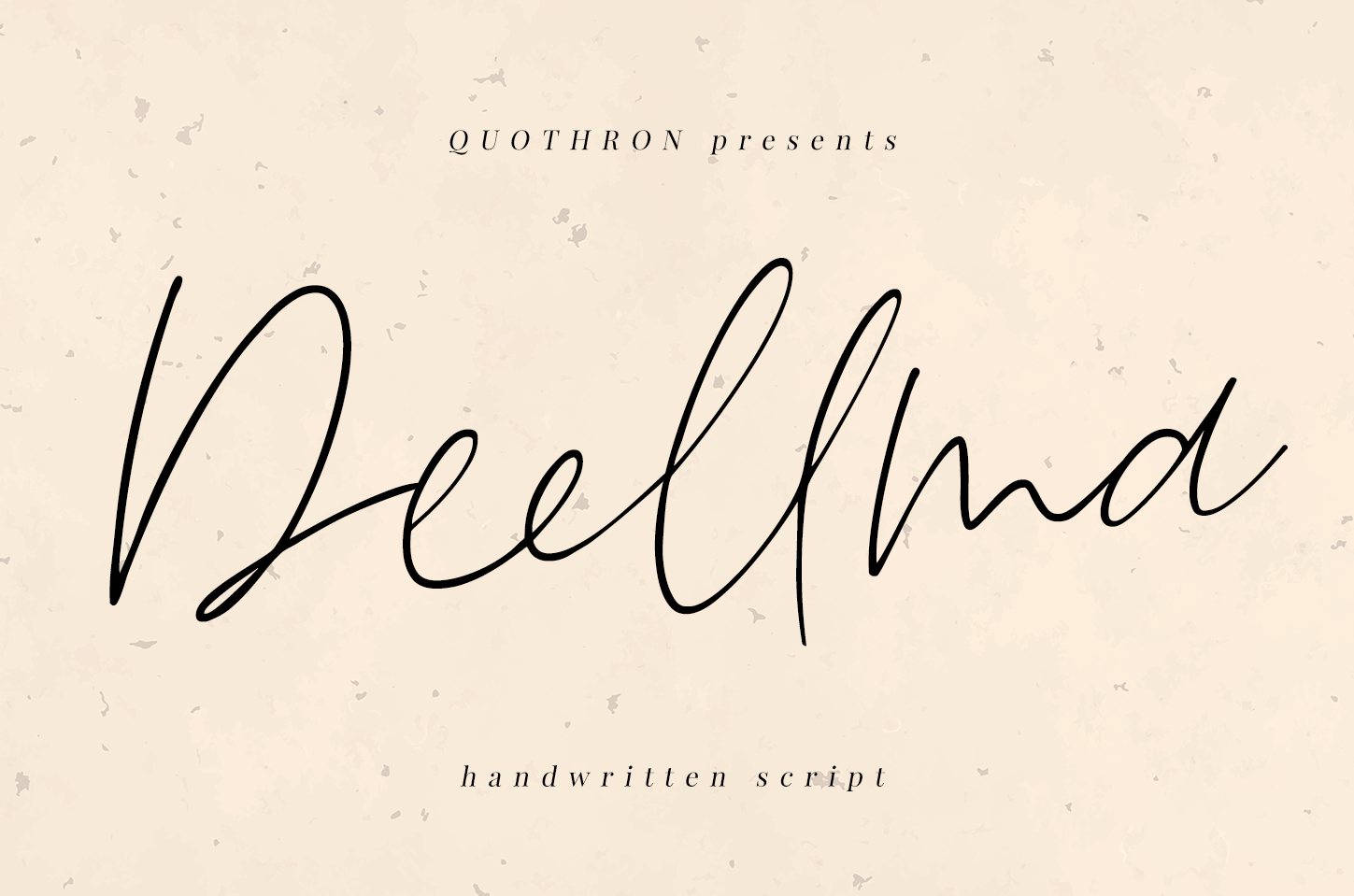
Deellma - Script font
Deellma - a new fresh handmade calligraphy font.
Very suitable for greeting cards, branding materials, business cards, quotes, posters, and more!This font are perfect for wedding postcard. Or you can create perfect and unique design of your logo, blog, stationery, marketing, magazines and more :)